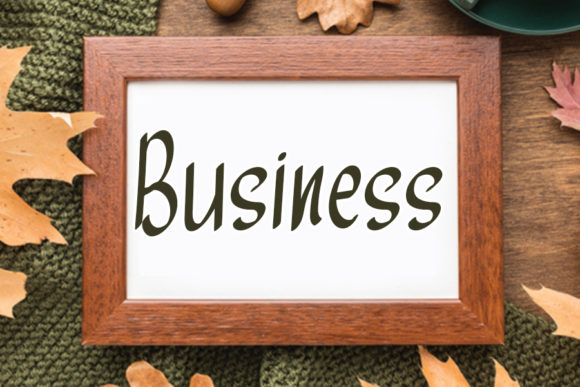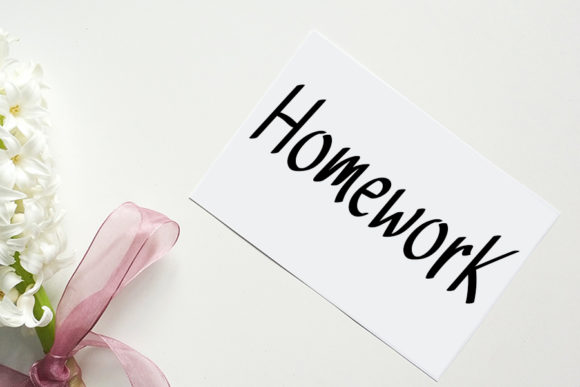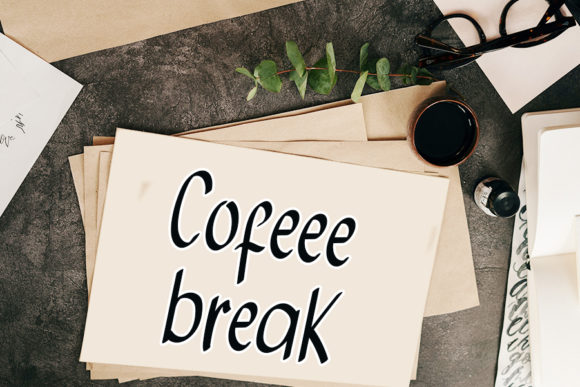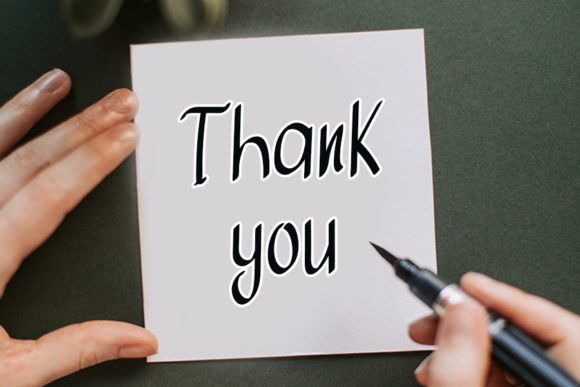
Bring Your Creations to Life with the Butterfly Font
Have you ever been in the middle of a DIY project, and you just can’t seem to find the right finishing touch? Maybe it’s a handmade card for a loved one, or a customized sign for your home office. Whatever it is, you know that the right font can make all the difference.
That’s where the Butterfly Font comes in – a gorgeous and unique handwritten font that’s perfect for adding a personal touch to any project. With its casual and timeless vibe, it’s the perfect choice for designers looking to create something truly special. Whether you’re a seasoned pro or a DIY newbie, the Butterfly Font is a valuable tool in your creative arsenal.
Butterfly Font Key Features
- Font Family: Butterfly is a unique, handwritten font designed to evoke a sense of elegance and sophistication.
- Unique Characteristics: Distinctive, flowing script with a mix of cursive and handwritten elements, making it ideal for creative and artistic projects.
Butterfly Font Review
I recently had the chance to work with the Butterfly Font, and I must say, it’s a lovely addition to any design project. Here are my thoughts:
- The whimsical feel of the font is perfect for creative projects like invitations, posters, and children’s books.
- The script-like style adds a touch of elegance and sophistication to headings and titles.
- The font is highly customizable, allowing for adjustments to line spacing, letter spacing, and even the weight of the font.
- The font may not be suitable for body text due to its intricate design, which can be difficult to read in larger blocks of text.
Overall, I think the Butterfly Font is a beautiful addition to any design project. While it may have some limitations, its unique style and customization options make it a great choice for creative projects. I would recommend using it sparingly, however, to avoid overwhelming the reader with too much visual information.
Butterfly Font is ideal for creative and whimsical designs, such as:
Children’s book illustrations
Wedding invitations
Party decorations